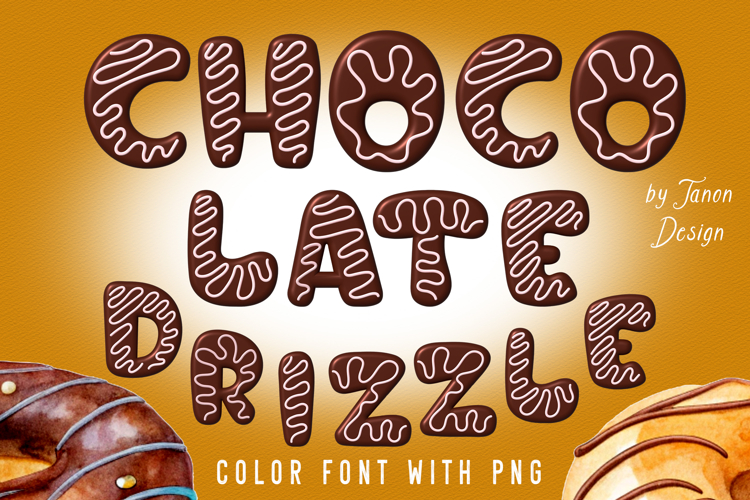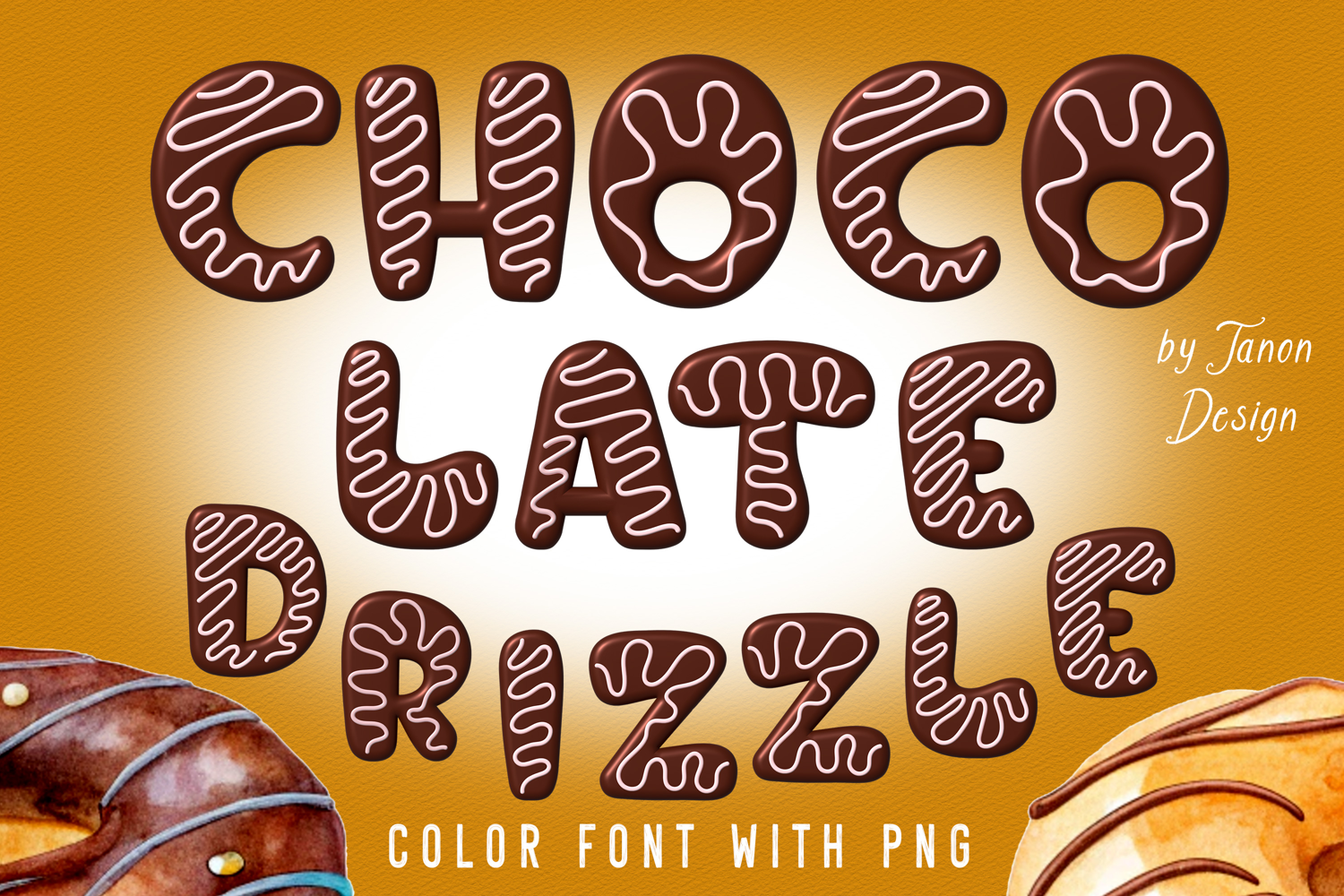
Chocolate Drizzle Bitmap SVG color font is a fun and festive display font. It will look fantastic on all your Chocolate-themed designs including t-shirt designs, mug designs, digital designs, crafts, cards, and any projects!